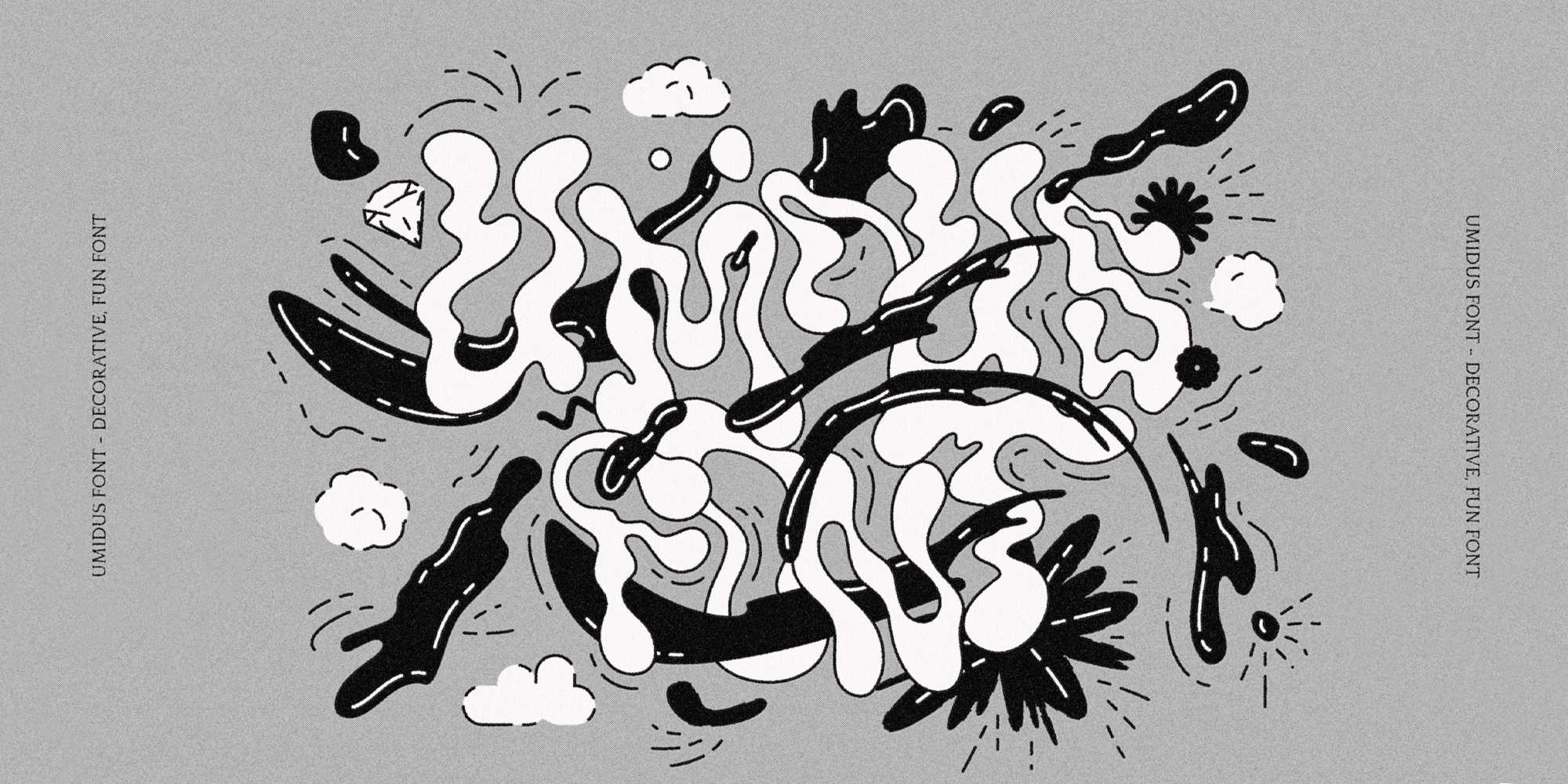
Where Can You Use Umidus Font?
This versatile font excels in:
Tech startup branding (AI, VR, and next-gen digital products)
Sci-fi interfaces (movie titles, game HUDs, cyberpunk graphics)
Futuristic packaging (smart devices, innovative gadgets)
Modern editorial design (progressive magazines, digital publications)
Why Is Umidus Font Exciting?
Umidus redefines contemporary typography with:
Hybrid character shapes merging geometric and fluid forms
Multiple stylistic sets for customizable tech aesthetics
Perfect readability across digital and print mediums
Neon-ready alternates for glowing cybernetic effects
Umidus Font Family
The complete digital ecosystem includes:
Umidus Regular (base futuristic style)
Umidus Thin (ultra-lightweight variant)
Umidus Block (solid cyberpunk version)
Umidus Glow (built-in light effects)